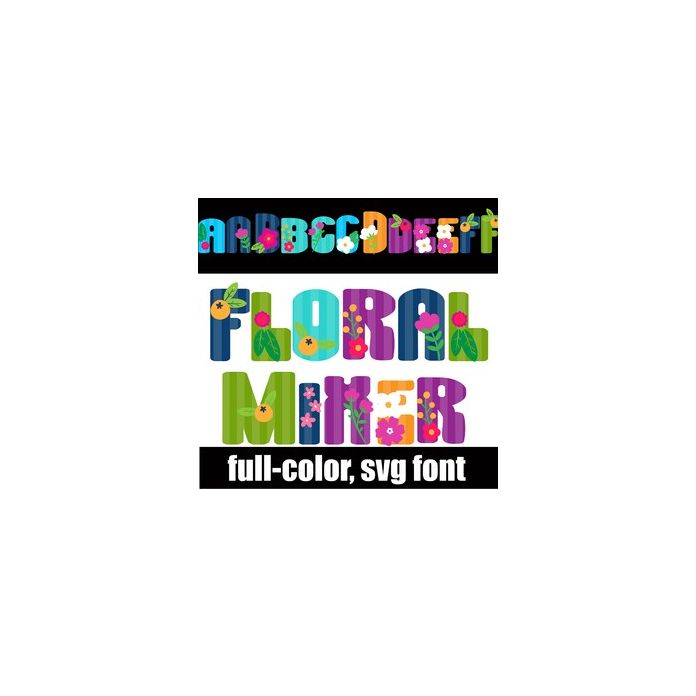
This full-color font features brightly colored striped lettering with a mix of florals. There is an alt case w/ additional colors you can access through your system or Silhouette's glyph map.